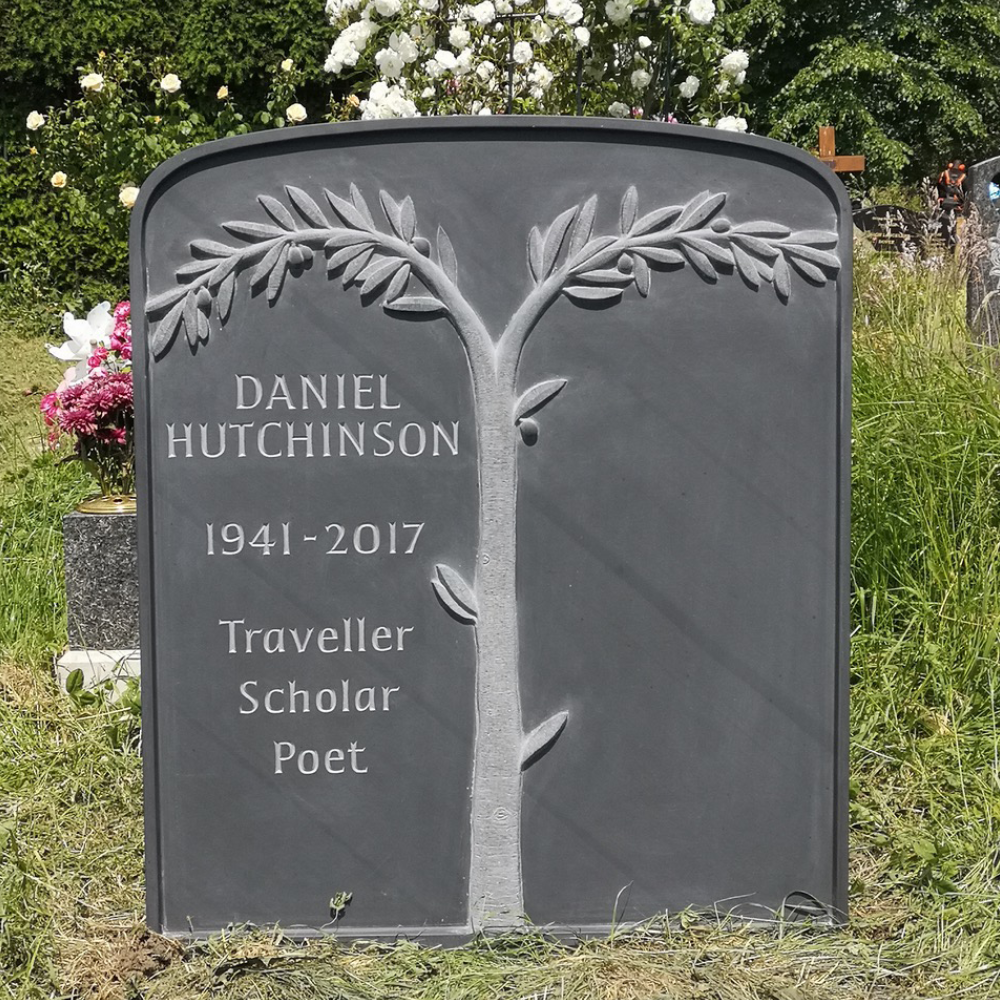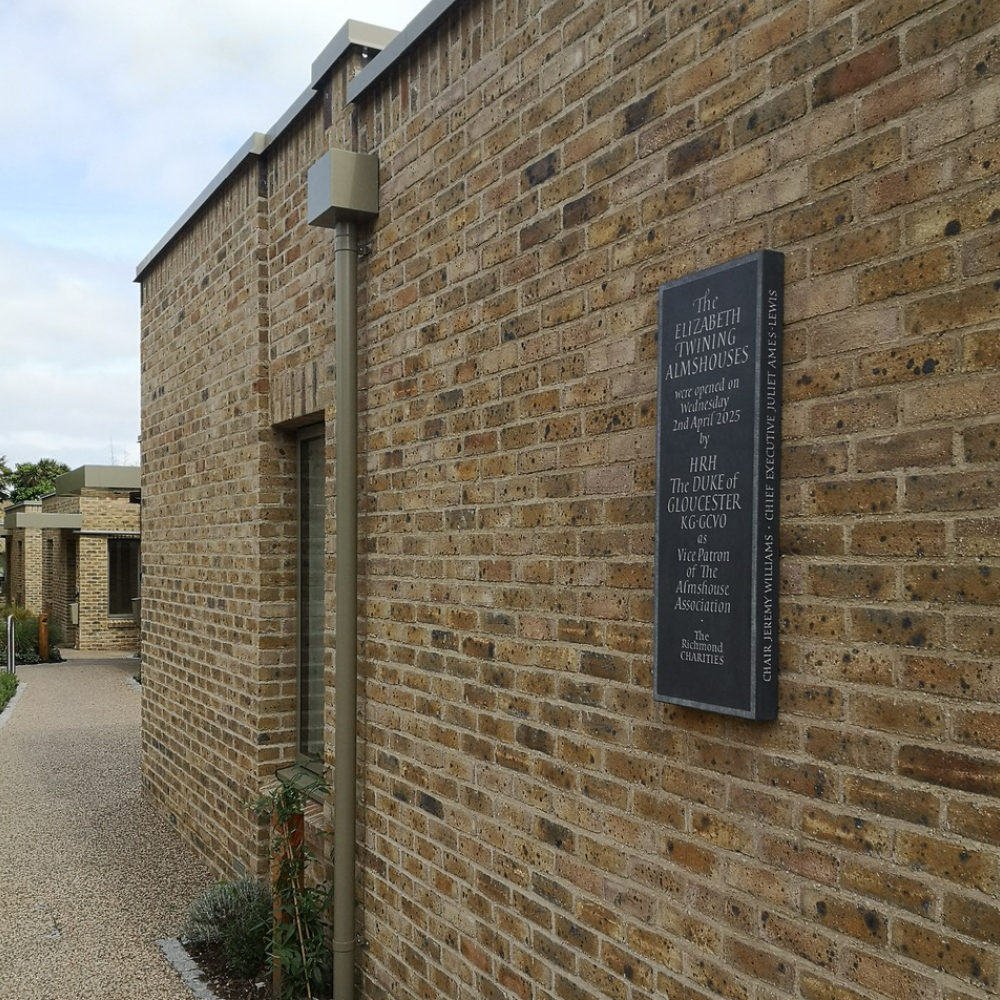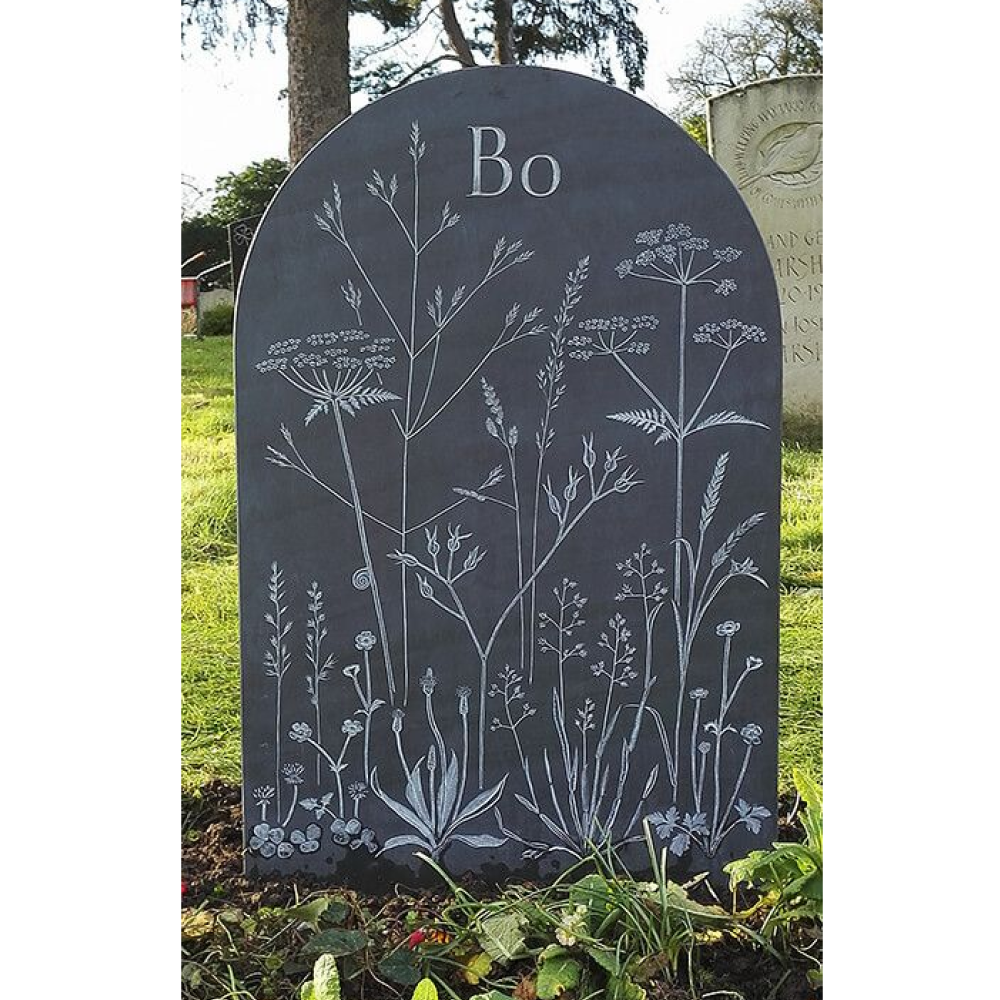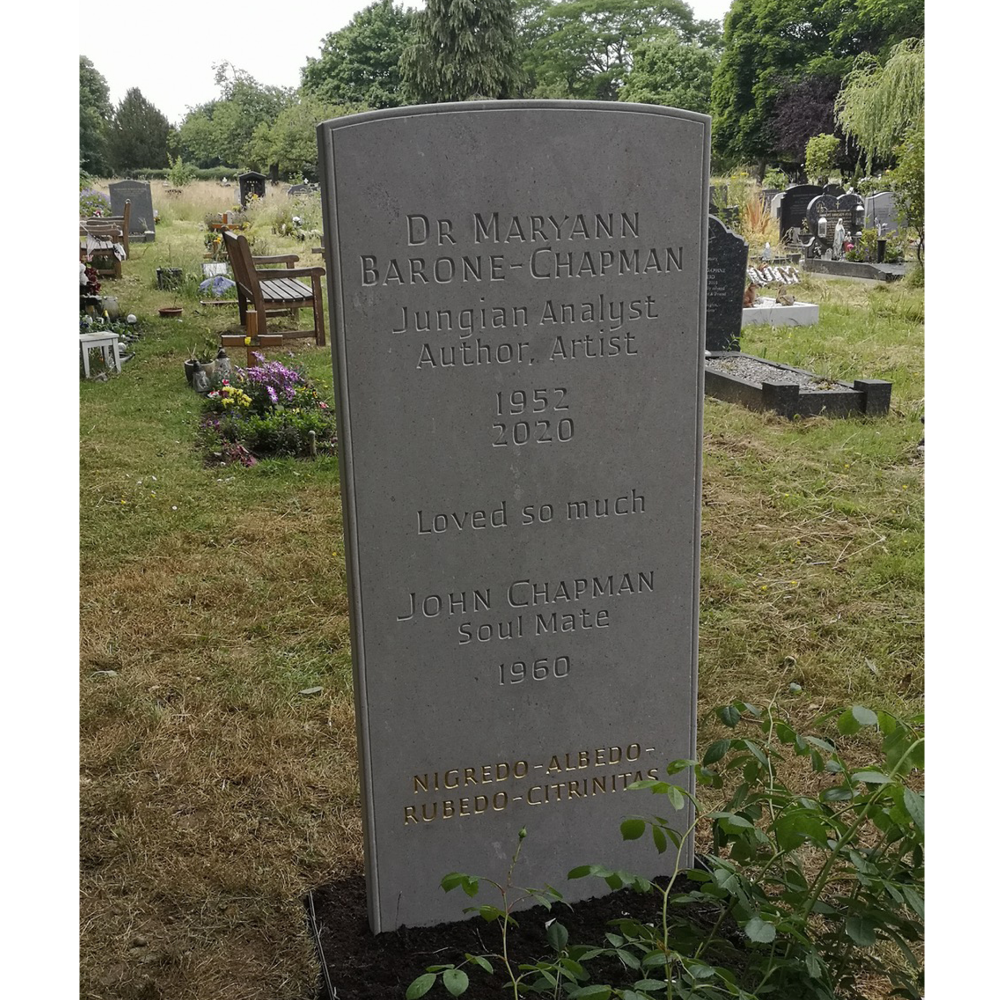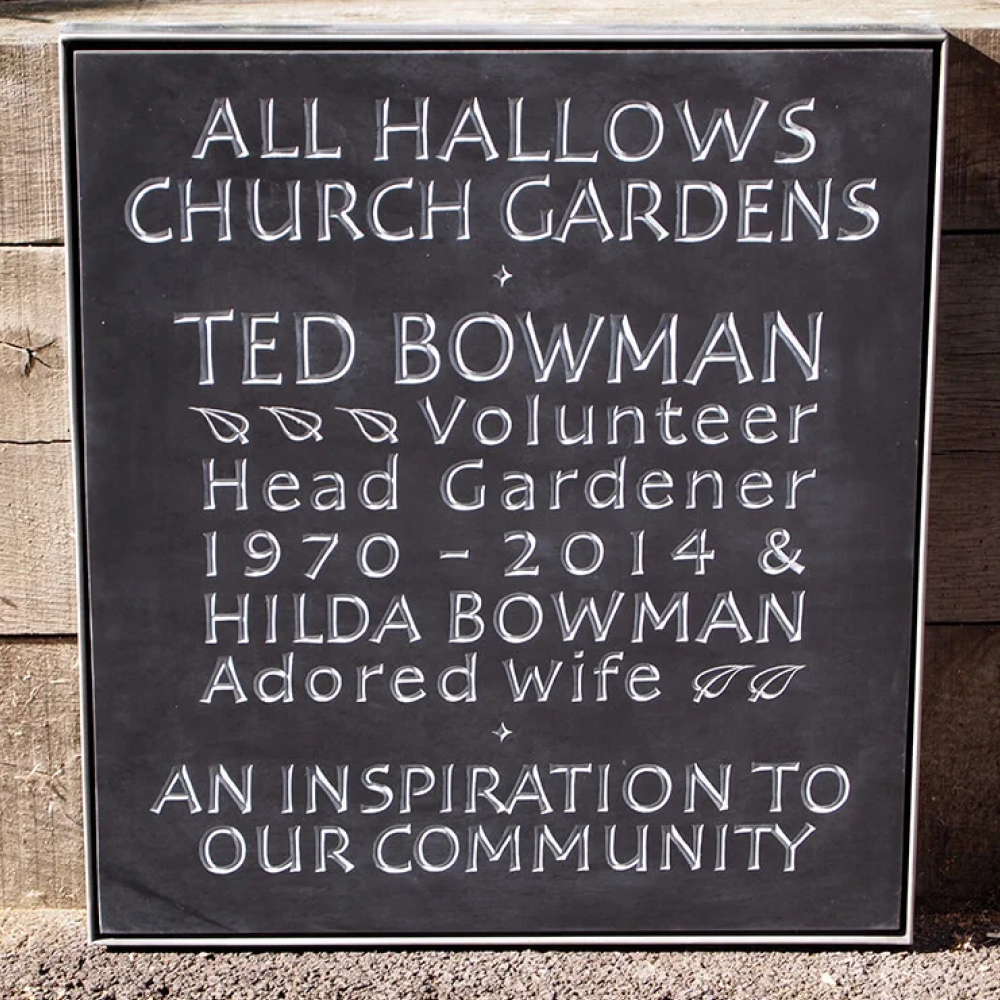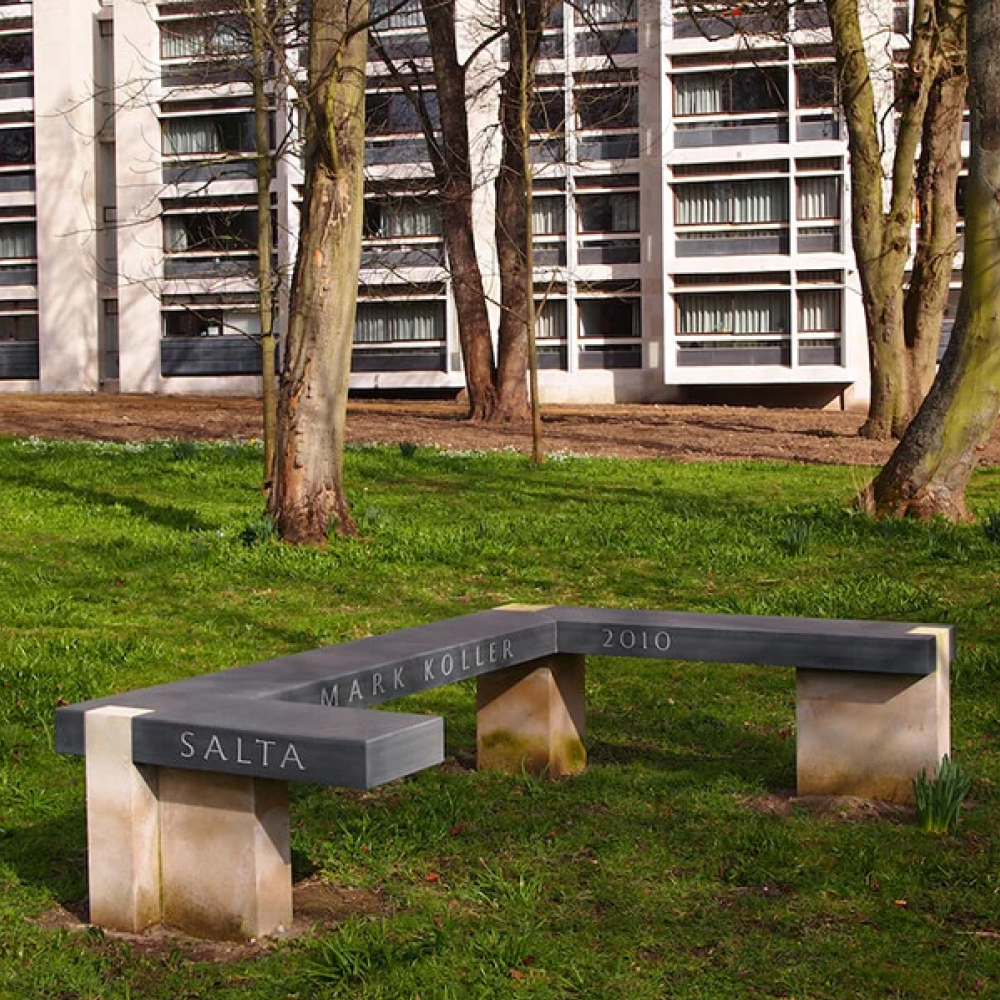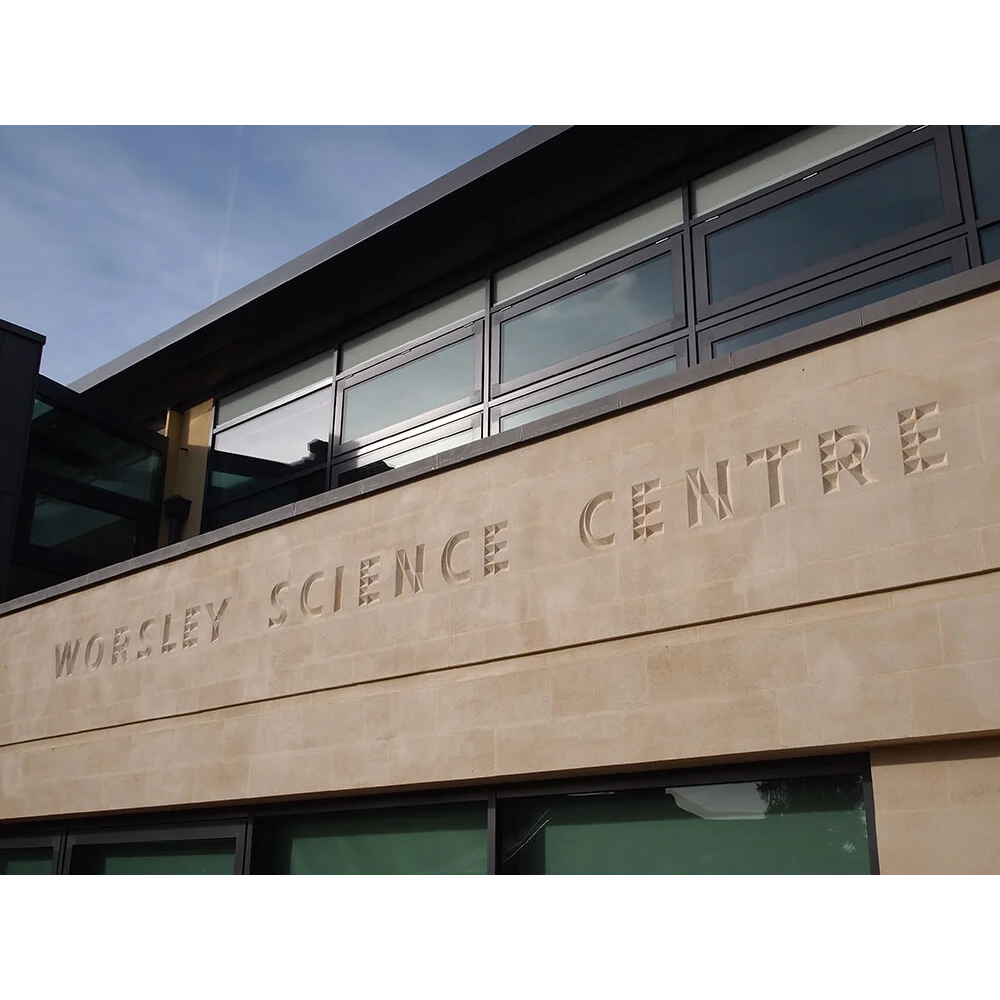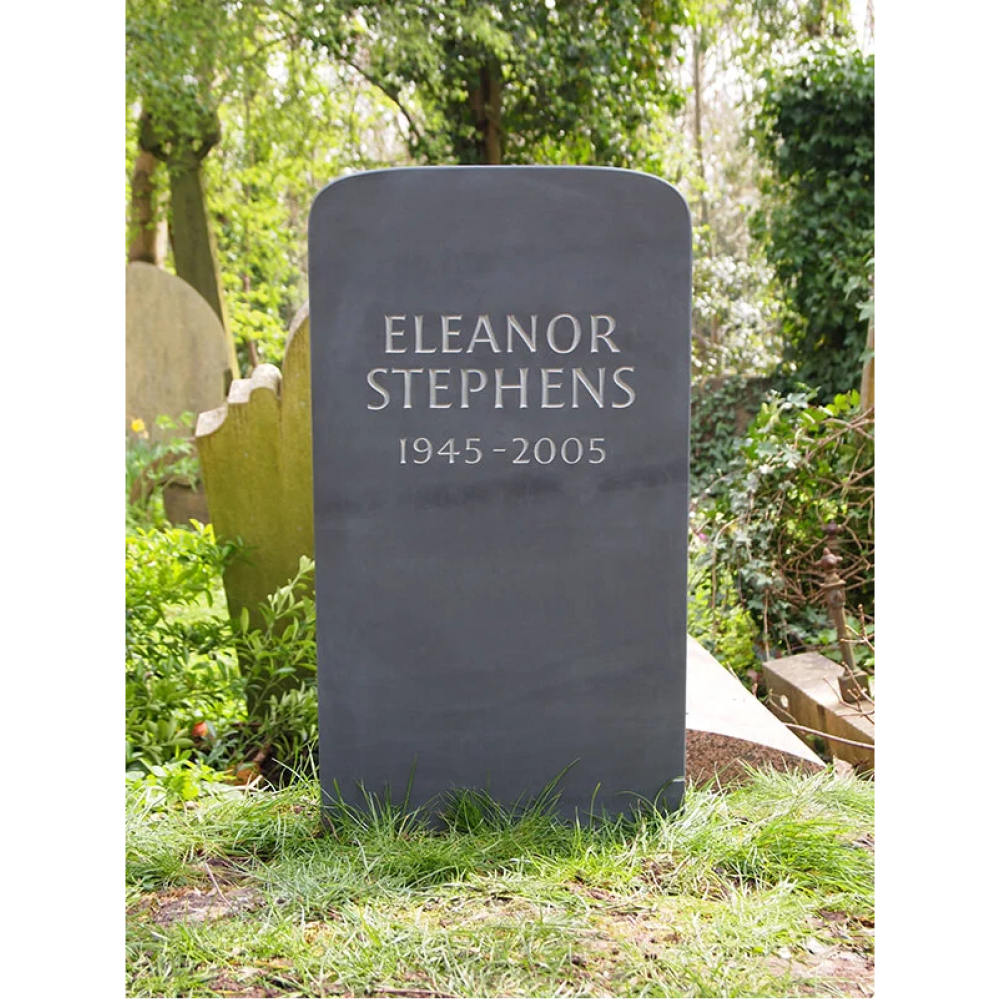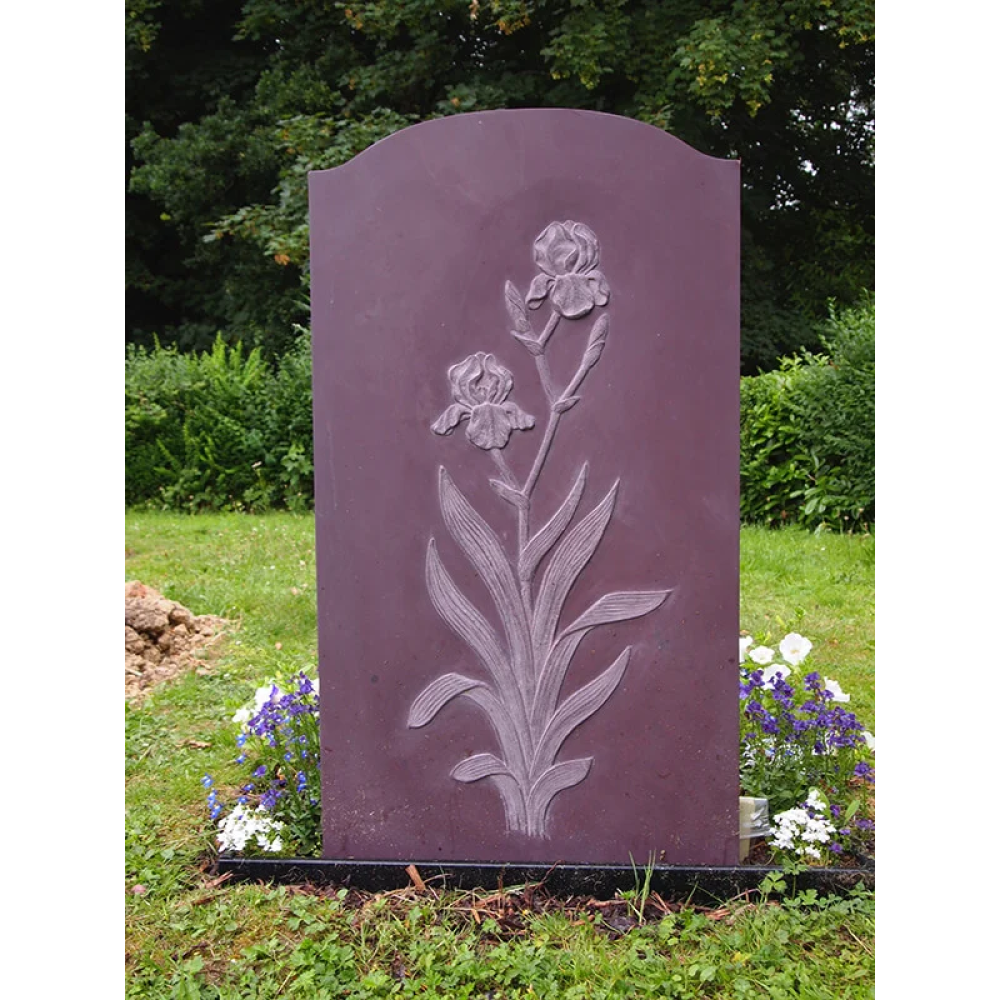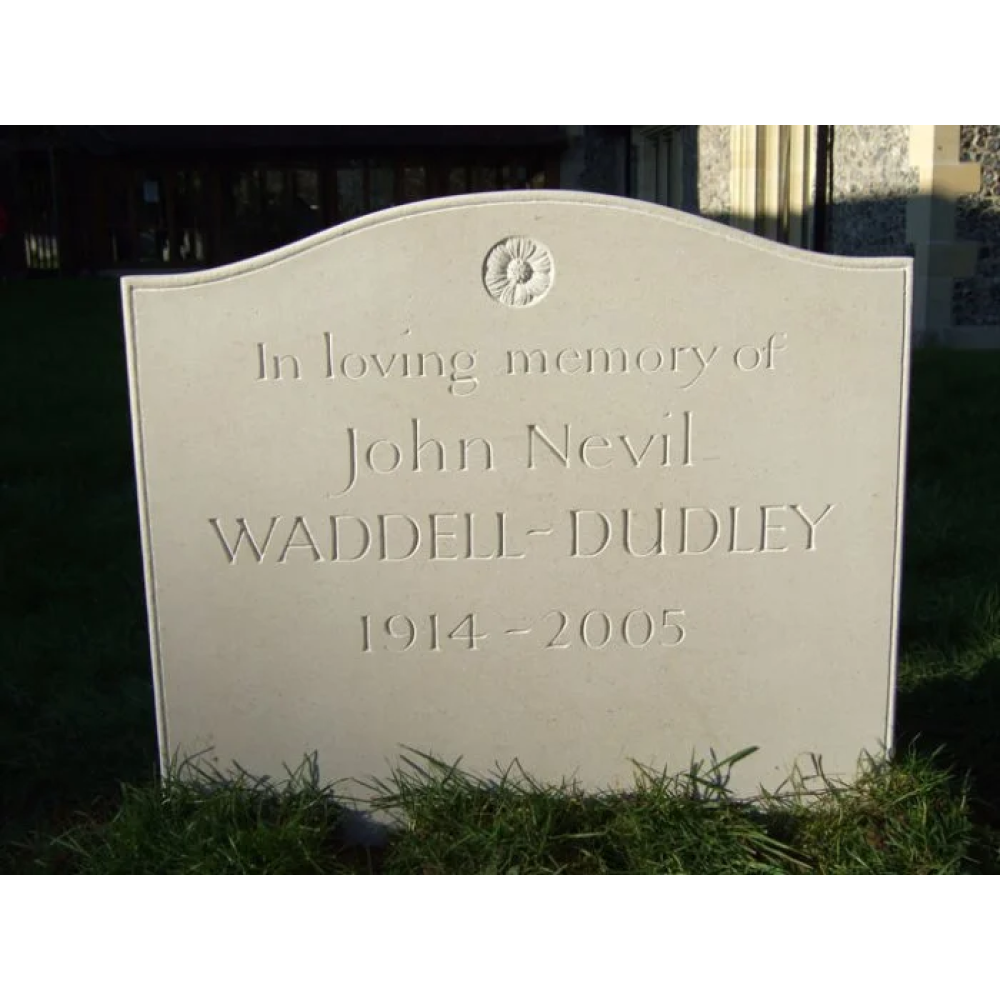
I originate lettering by hand in a number of mediums; lettercarving in stone, slate and wood, brush lettering and traditional signwriting.
Often I use the brush to set out inscriptional work, which ranges from formal Roman to my own casual 'Phil Sans'. All lettering is designed by brush or pencil to suit its purpose and place so creating a unique response to each commission.
Graduating in 1996 from the City & Guilds of London Art School, Surey spent short spells assisting Richard Kindersley and Ralph Beyer before establishing a busy workshop in London.